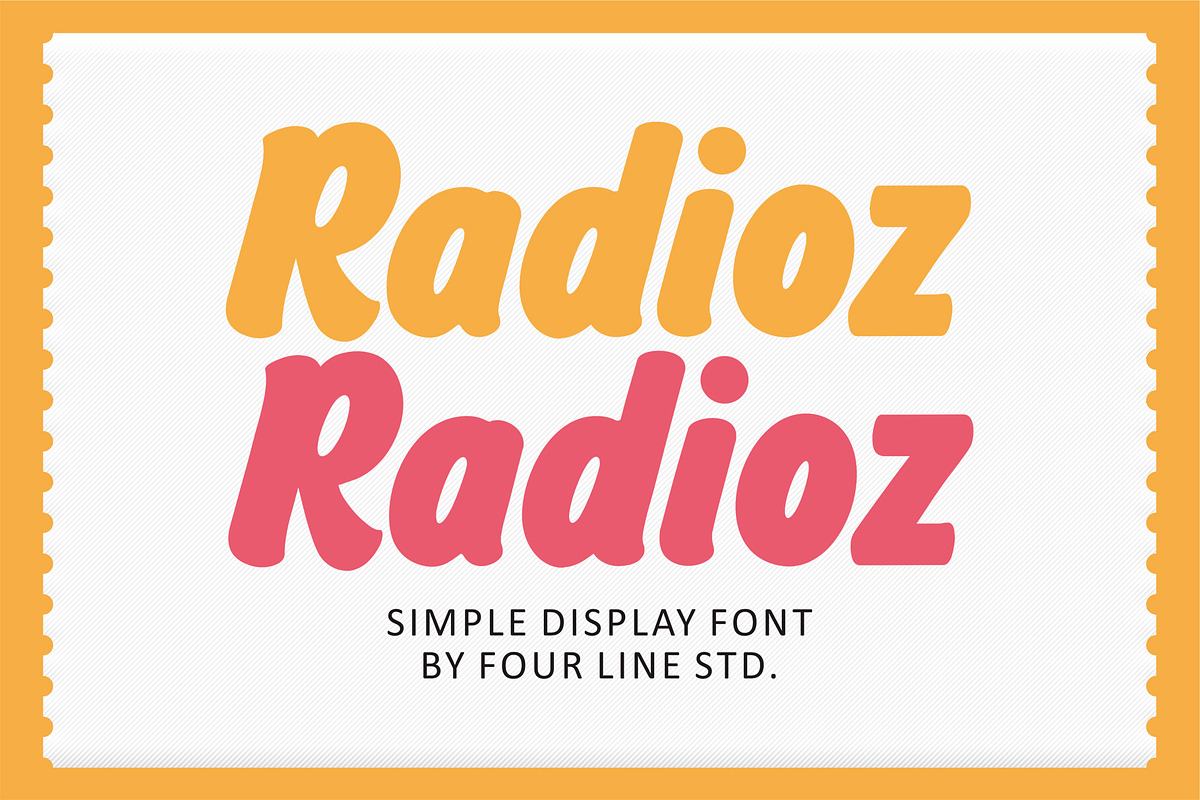
Radioz – Simply Playful Display Font Free Download is a quirky and energetic typeface designed to bring a smile to your designs. With its irregular shapes, bouncy baseline, and lighthearted personality, this font is perfect for children’s projects, event posters, playful branding, YouTube graphics, and fun packaging designs.
Full of character and easy to customize, Radioz – Simply Playful Display Font Free Download adds an informal, joyful vibe wherever it’s used. Whether you're creating headlines, product names, or social media content, this font grabs attention and keeps things fun and fresh.